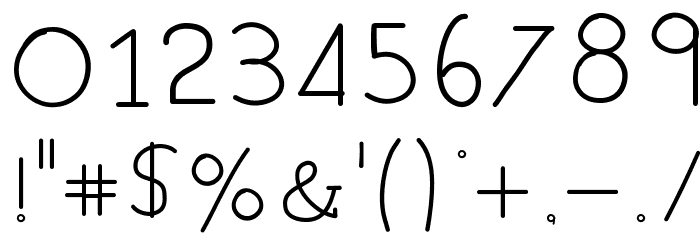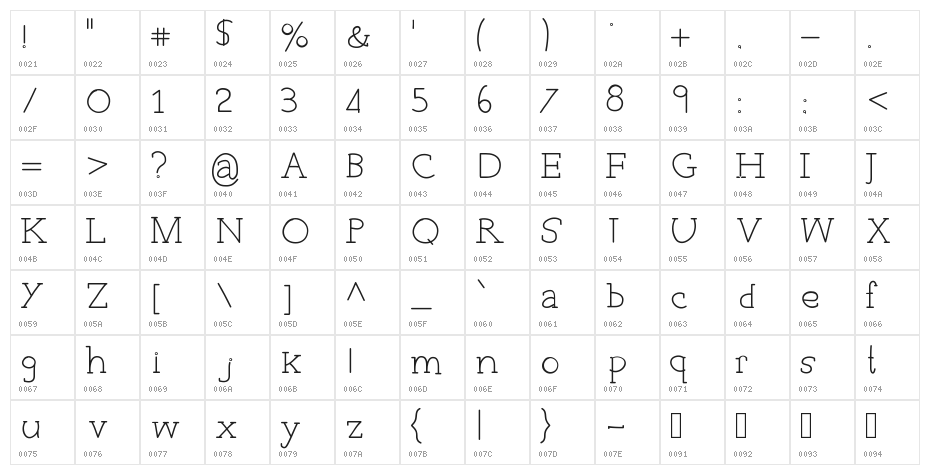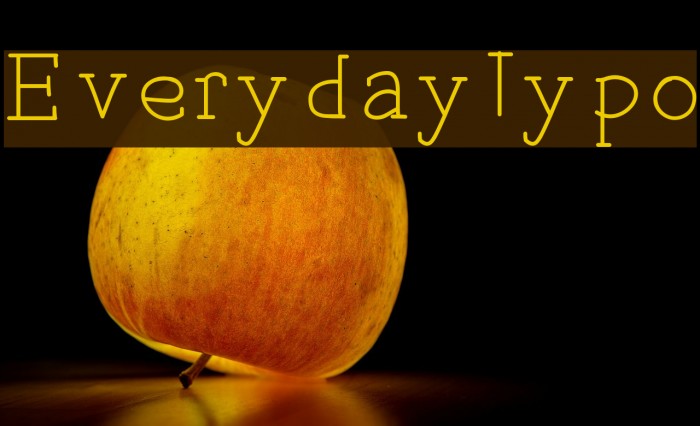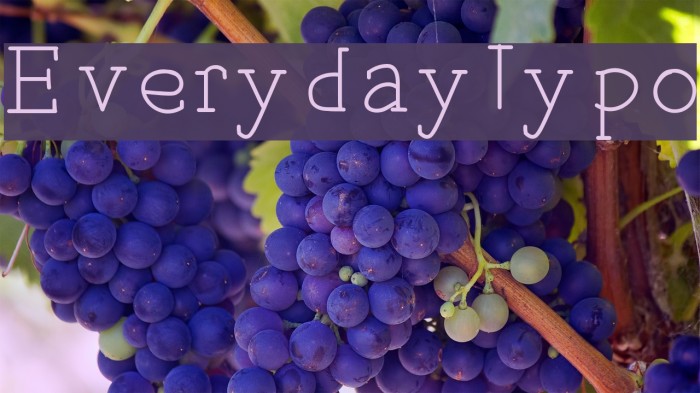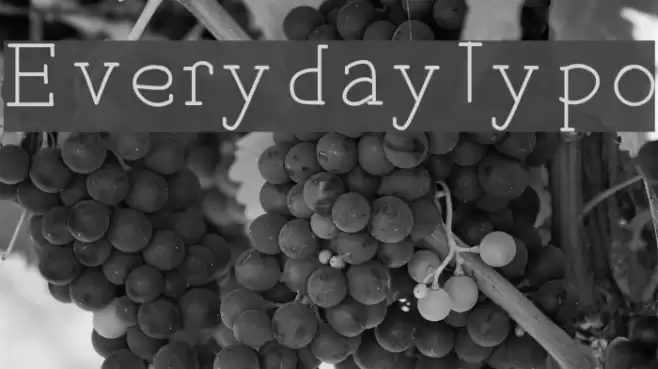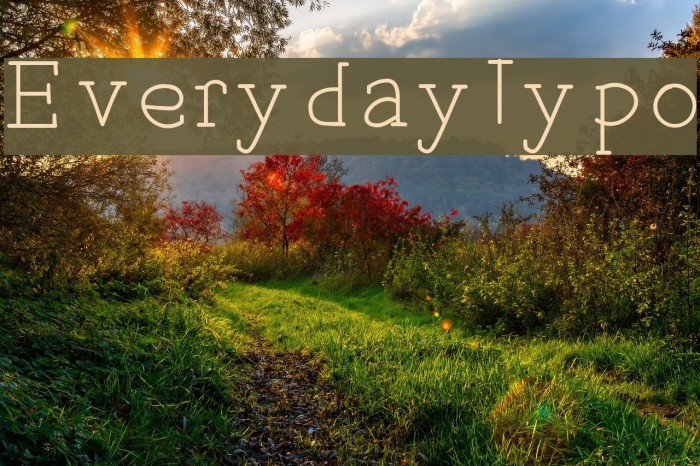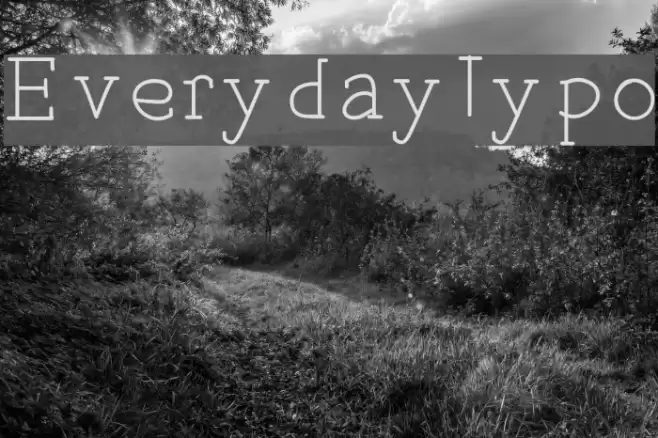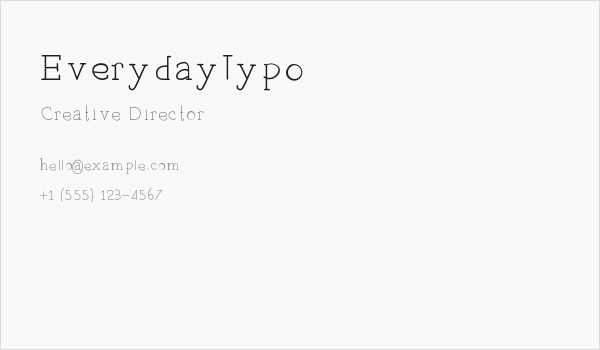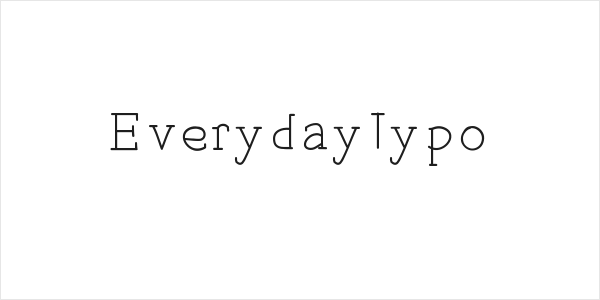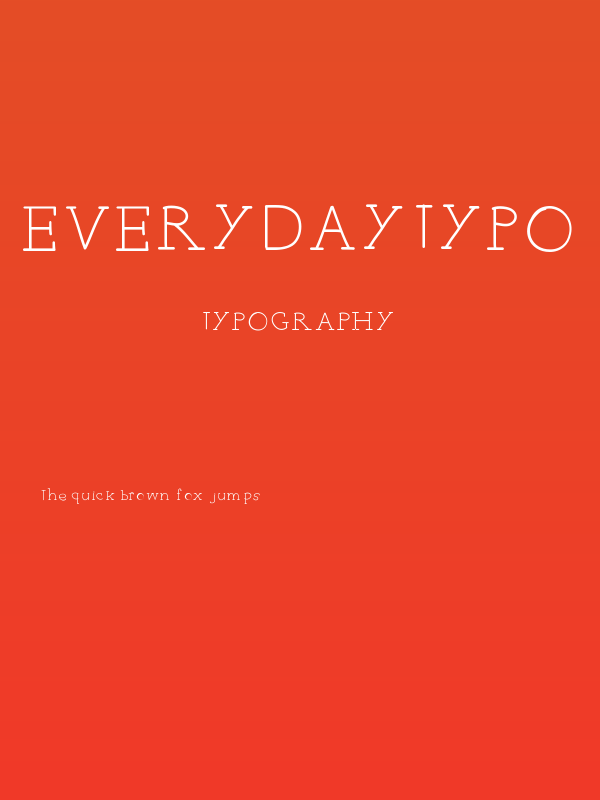
EverydayTypo Font
EverydayTypo Description
This font features a clean and modern design with a slight vintage touch. The characters are well-balanced with a consistent stroke width, giving it a uniform appearance. The uppercase letters are bold and commanding, while the lowercase letters maintain a friendly and approachable feel. The numerals are clear and easy to read, making them suitable for various applications. The special characters are distinct and well-integrated into the overall design, ensuring versatility in usage. The font's simplicity and elegance make it ideal for both digital and print media.
| Proposed Projects | Ideal for branding, editorial design, websites, and advertising materials. |